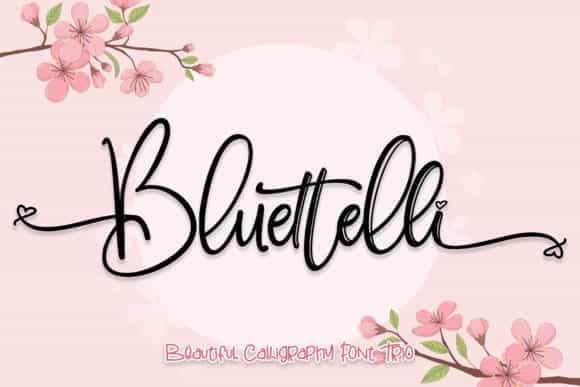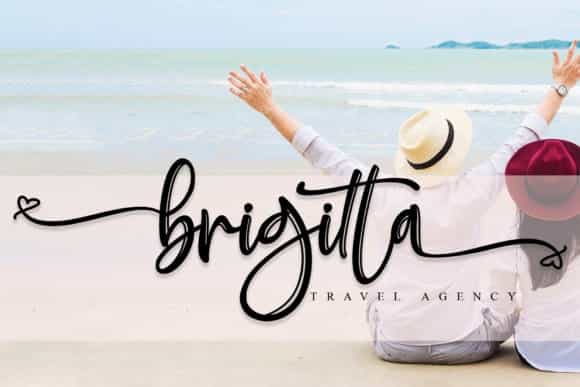
Bluettelli is a great font trio that includes three lovely script calligraphy. By your next design if you put these three fonts together it will give a wonderful and friendly look. Bluettelli font is just perfect for a wedding, event, invitation card, escort cards, table numbers and menus headers as well. It can be used in the custom address on stamps packaging or greeting cards too.